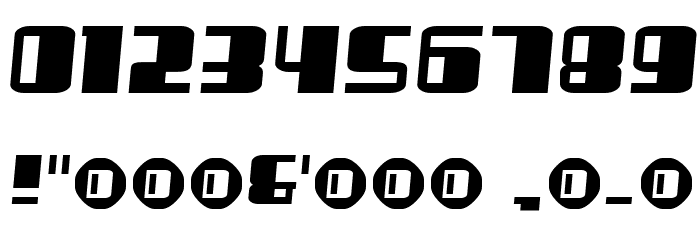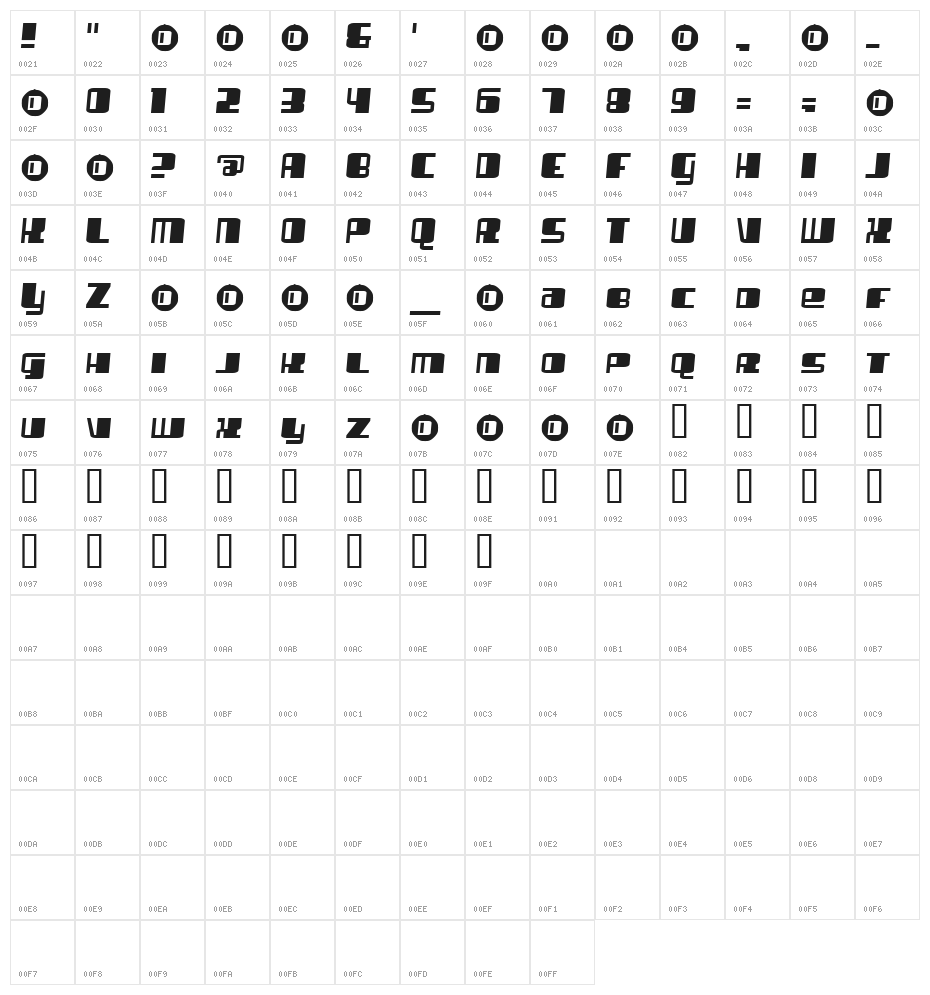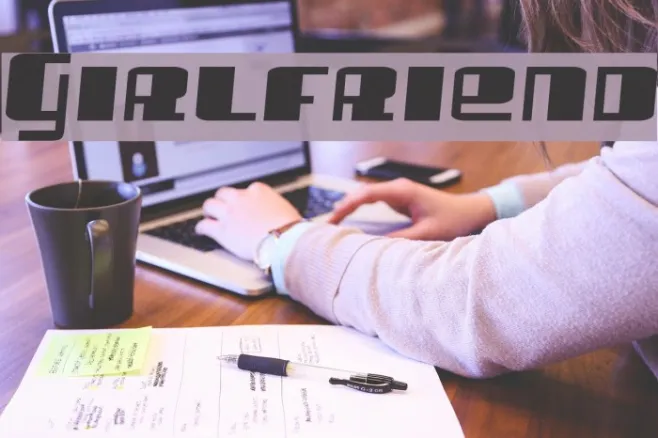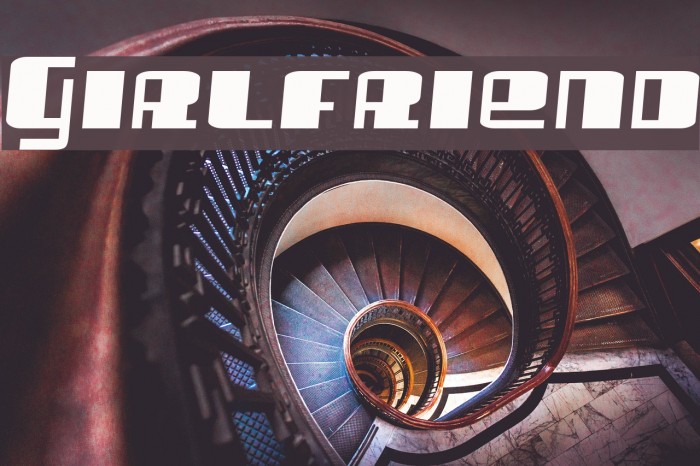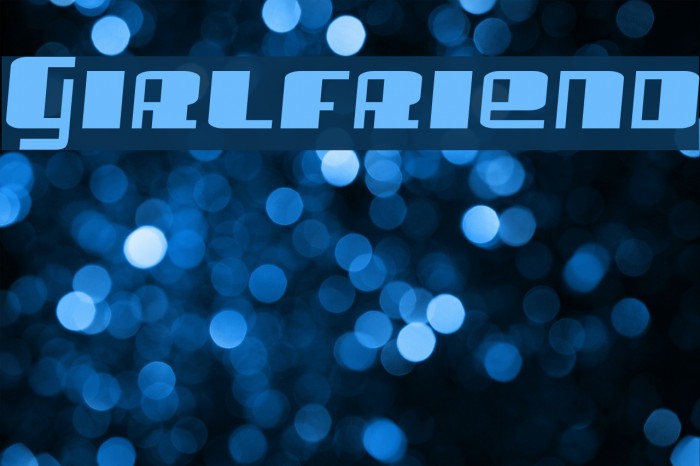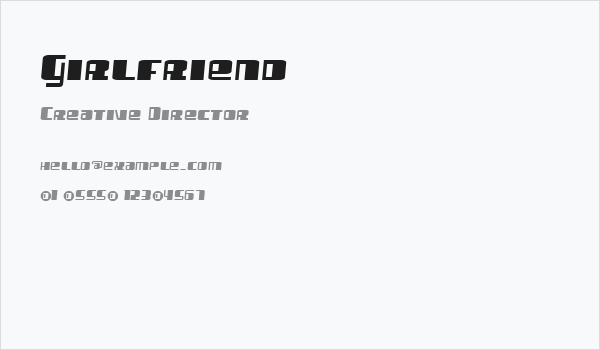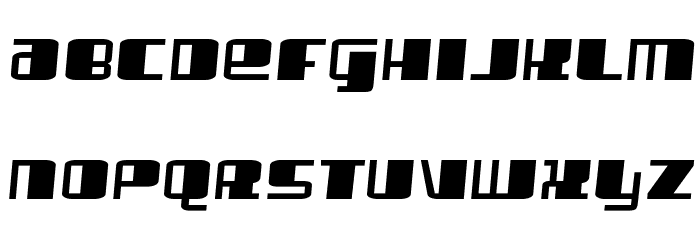
Girlfriend Font
Girlfriend Description
This font features a bold and futuristic design with geometric elements. The characters are distinct with sharp angles and a strong presence, making it ideal for attention-grabbing headlines. The uppercase letters have a unique style with varying widths, while the lowercase letters maintain a consistent look. The numbers are bold and easily readable, and the special characters complement the overall design. This font is perfect for projects that require a modern and dynamic appearance.